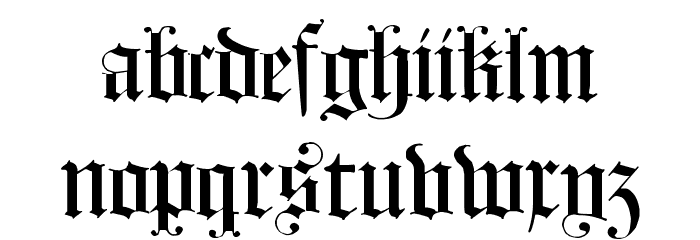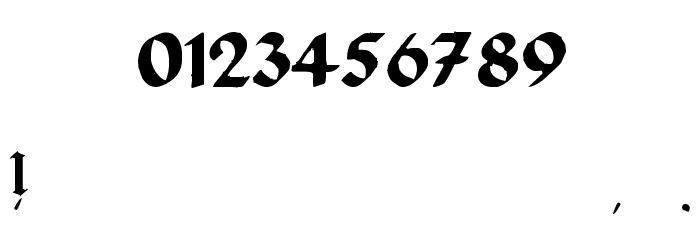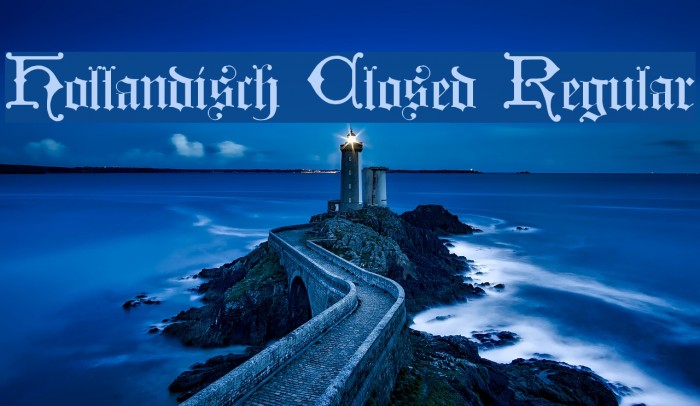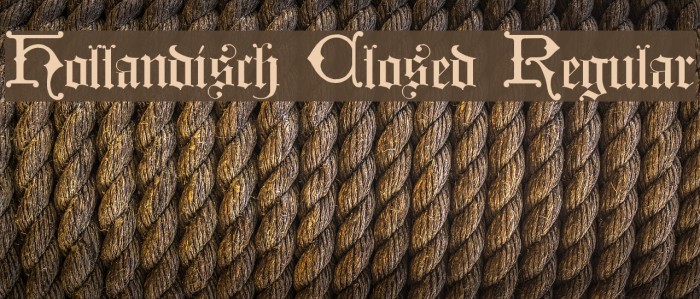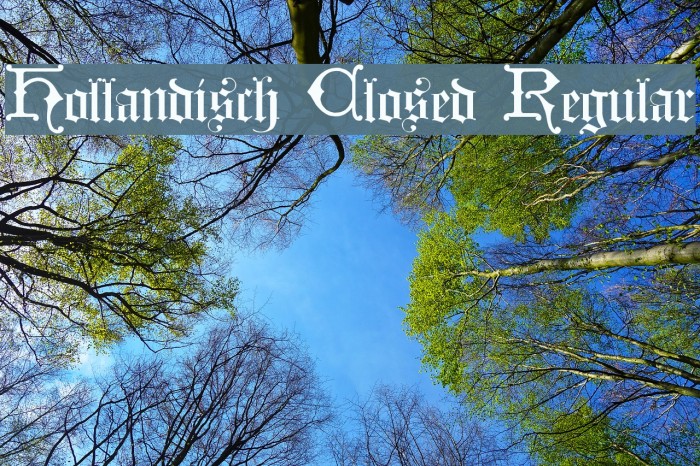
Hollandisch Closed Regular Font
This font exhibits a classic Blackletter style, characterized by its intricate and ornate design. The uppercase letters feature sharp, angular lines with decorative flourishes, giving them a medieval and gothic appearance. The lowercase letters maintain a similar aesthetic, with a slightly more condensed form, enhancing readability while preserving the elaborate style. The numerals are bold and consistent with the overall theme, providing a cohesive look. This font's unique design elements make it stand out, offering a historical and artistic feel.
A decorative Blackletter font with intricate, gothic-inspired design.
- Proposed Projects: Ideal for projects requiring a historical or medieval theme, such as book covers, posters, or branding for events and products with a vintage or gothic appeal.
- Category: Blackletter
- Overall Style: Vintage
- Use Case: Logos, Headlines, Decorative text